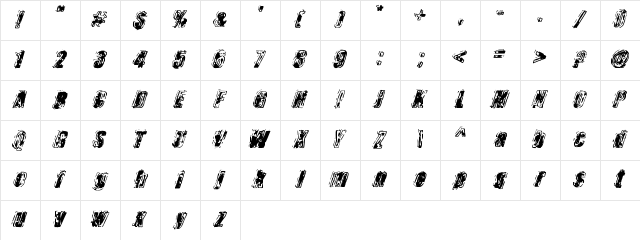
Zapped Regular
Zapped Family
Zapped Regular
Design Context for Zapped
Zapped is a composed and adaptable typeface that performs quietly and consistently across a wide range of design contexts.